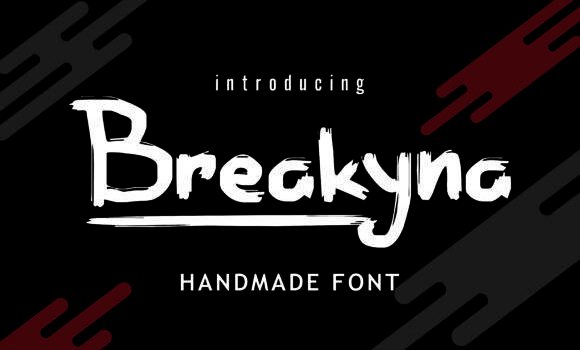
breakyna
Breakyna Font – Free Download Introduction to Breakyna Font The Breakyna is a fun handmade brush font. 📸 Preview Gallery 6 images 📌 Product Name Breakyna Font 👤 Author Ahsancomp Studio 📂 Category Explore ⬇️ Download Breakyna Font FREE Free